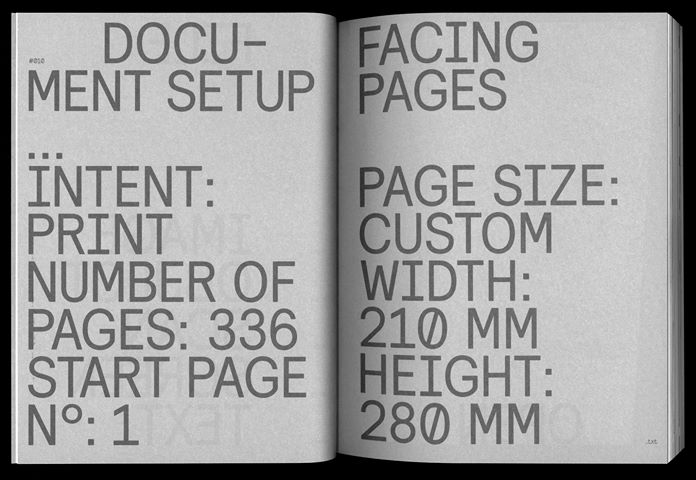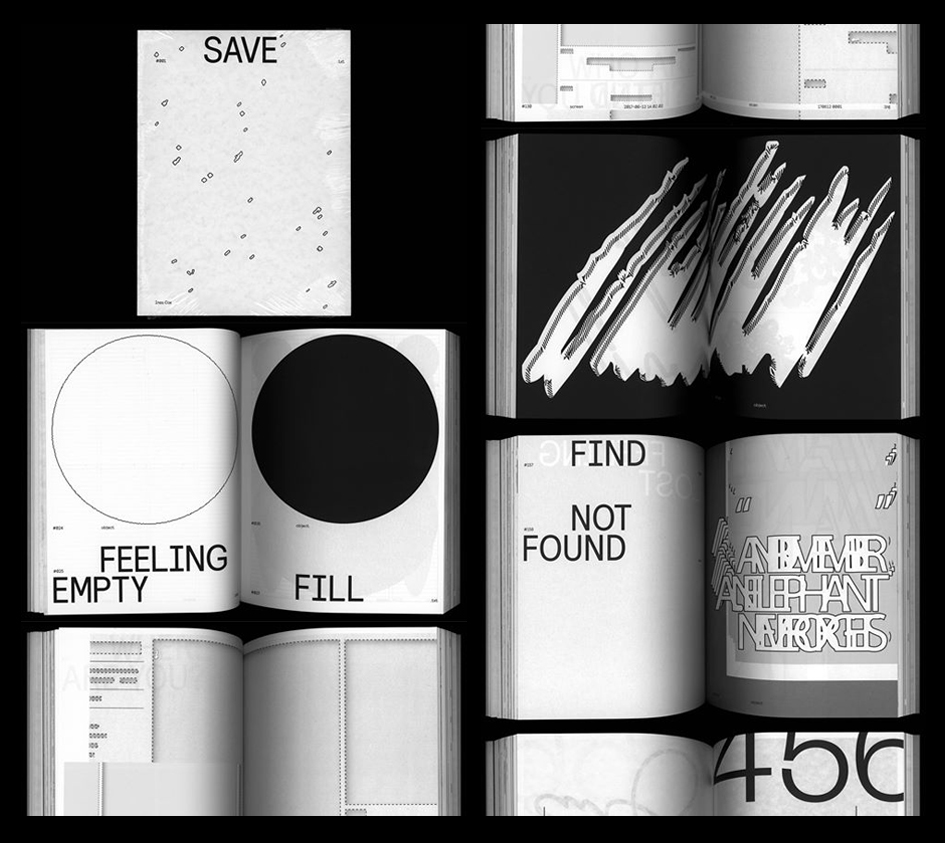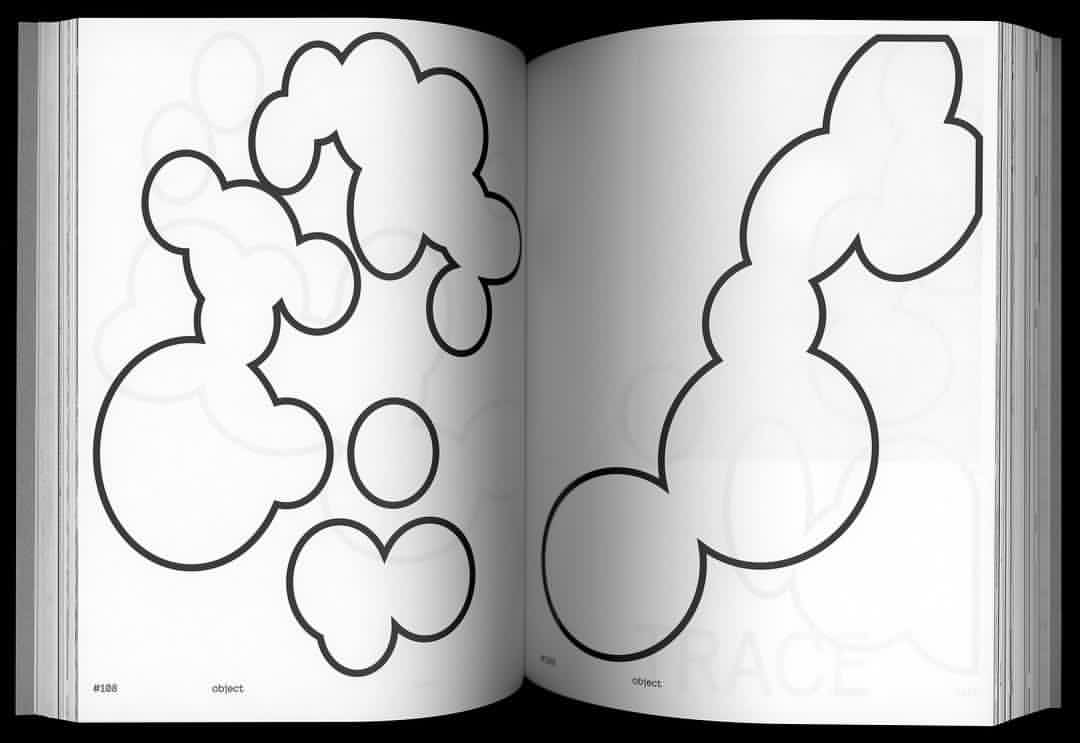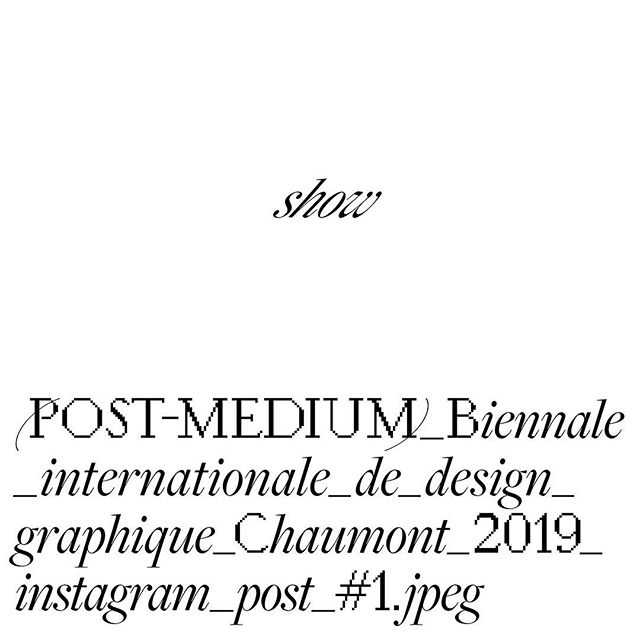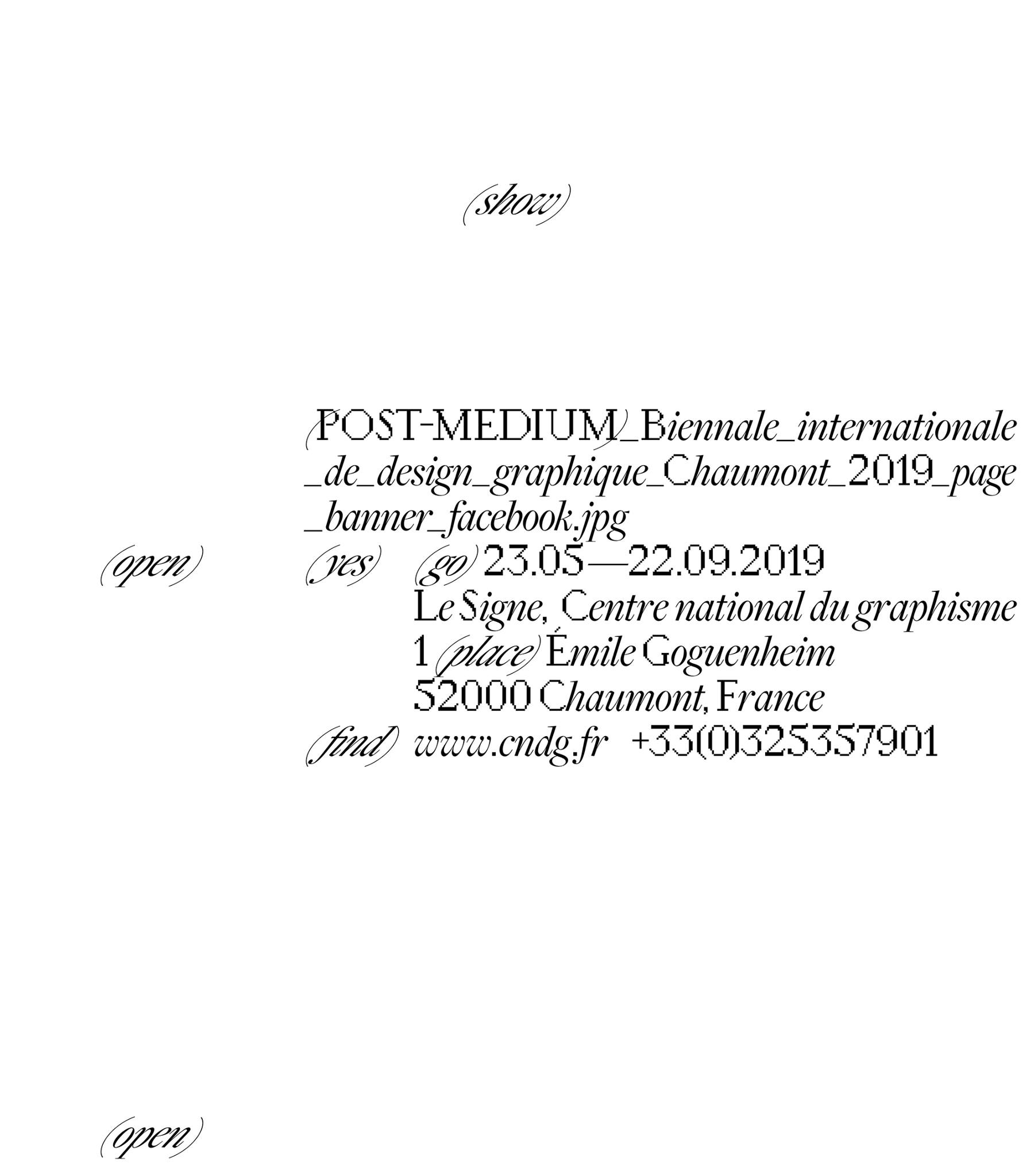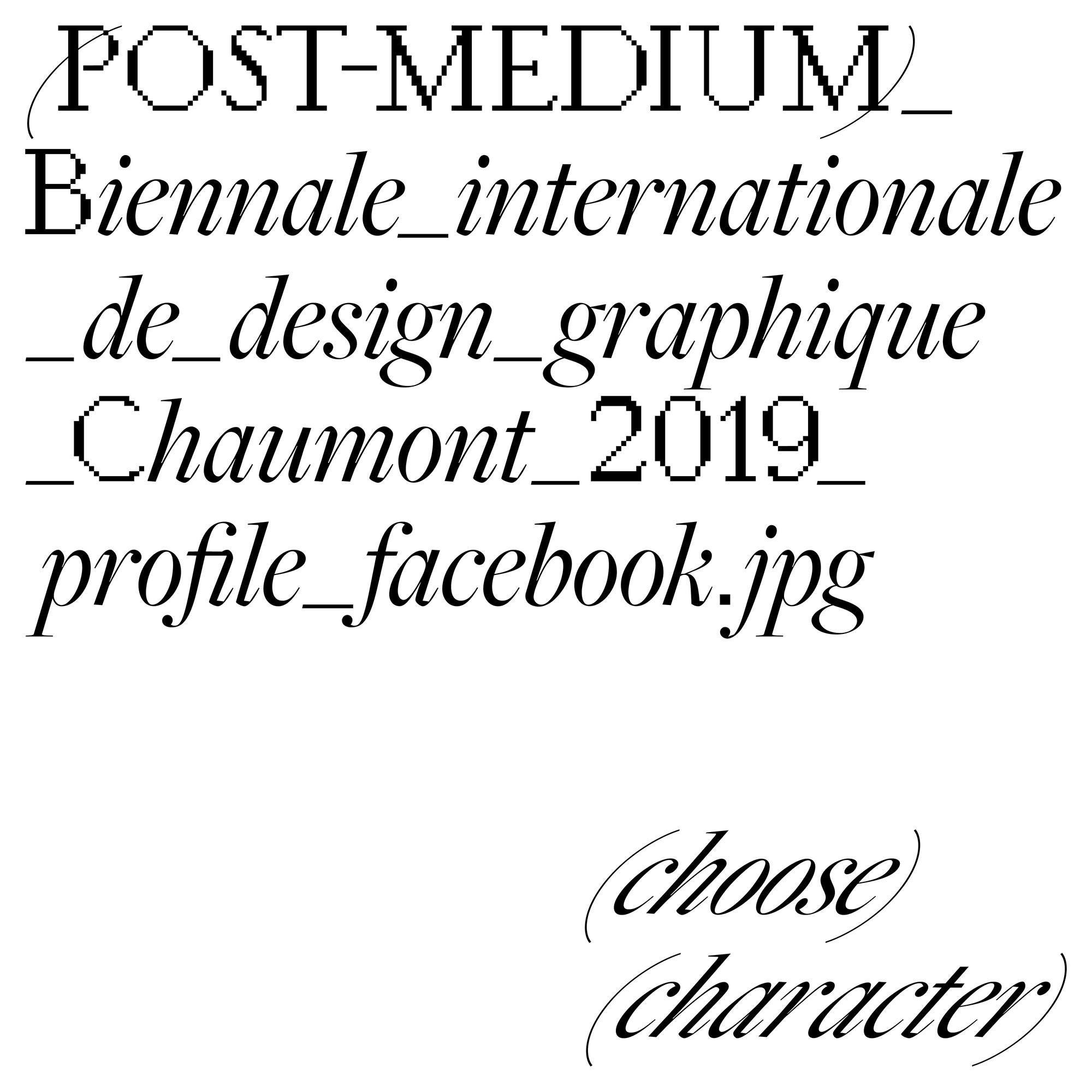
Post Medium: Ines Cox designs the visual identity of this year's Biennale internationale de design graphique
For its 2019 edition, the visual identity of the Biennale Internationale de Design Graphique was entrusted to Ines Cox, the Belgian graphic designer. The Antwerp-based designer's proposition flows from the programming language and the very name of this year's exhibition "Post Medium".
Ines Cox found inspiration in the computer programming language and in the work of conceptual artists such as Ed Ruscha.
The acclaimed graphic designer managed to isolate polysemous words that come from computer codes that structure digital interfaces “enter”, “shift”, “go”, “next”, etc.
The minimal execution, in black and white, with typographic choices that also call to mind the world of programming and digital pixelized images, recall computer interfaces that produce a seizing contrast once printed.
Finally, the language game continues with a system of variations on the proposal according to the format and the purpose: the name of the computer file, e.g. “press file” “A3 poster” etc. are the image itself, as an allusion to the artist Joseph Kosuth.
This is a pretty busy month for Cox who sees the release of her latest publication. In her book aptly named SAVE "the fleeting, seemingly unimportant, steps of the digital (work) process are given a leading role".
The elements that appear in the book are the result of a two-year research project at the Royal Academy of Fine Arts Antwerp.
Researcher and graphic designer Cox observed, documented and imitated the formal language that presented itself on her screen, generated by her computer and software.
The book gives shape to a series of screenshots and tells an associative story in which graphic characters and quotes (derived from the computer) undergo a specific choreography.